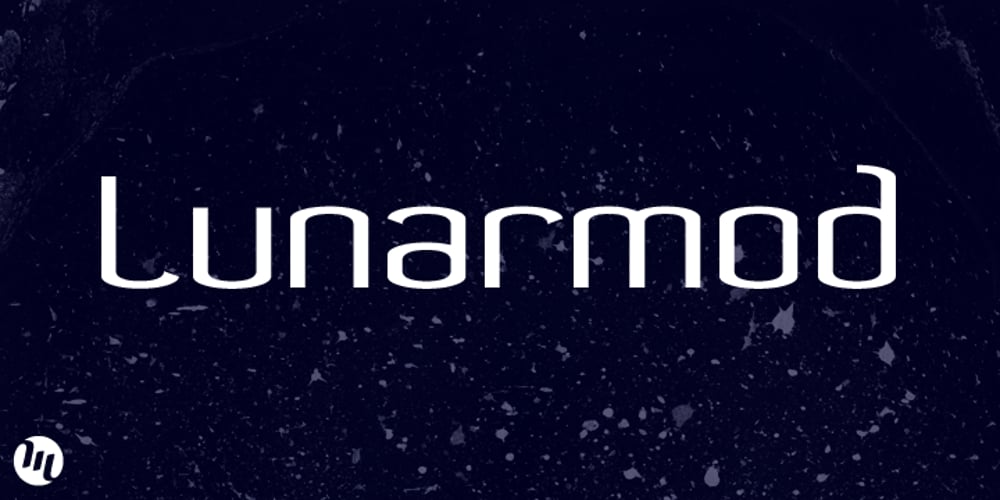
Lunarmod Font Family was designed by Matthew Aaron Desmond and published by MADType. Lunarmod contains 2 styles and family package options. Lunarmod is an attempt at creating a full font from a single basic shape, a box with oval ends. It ended up being very modular and looks slightly alien or spacey, hence the name Lunarmod.